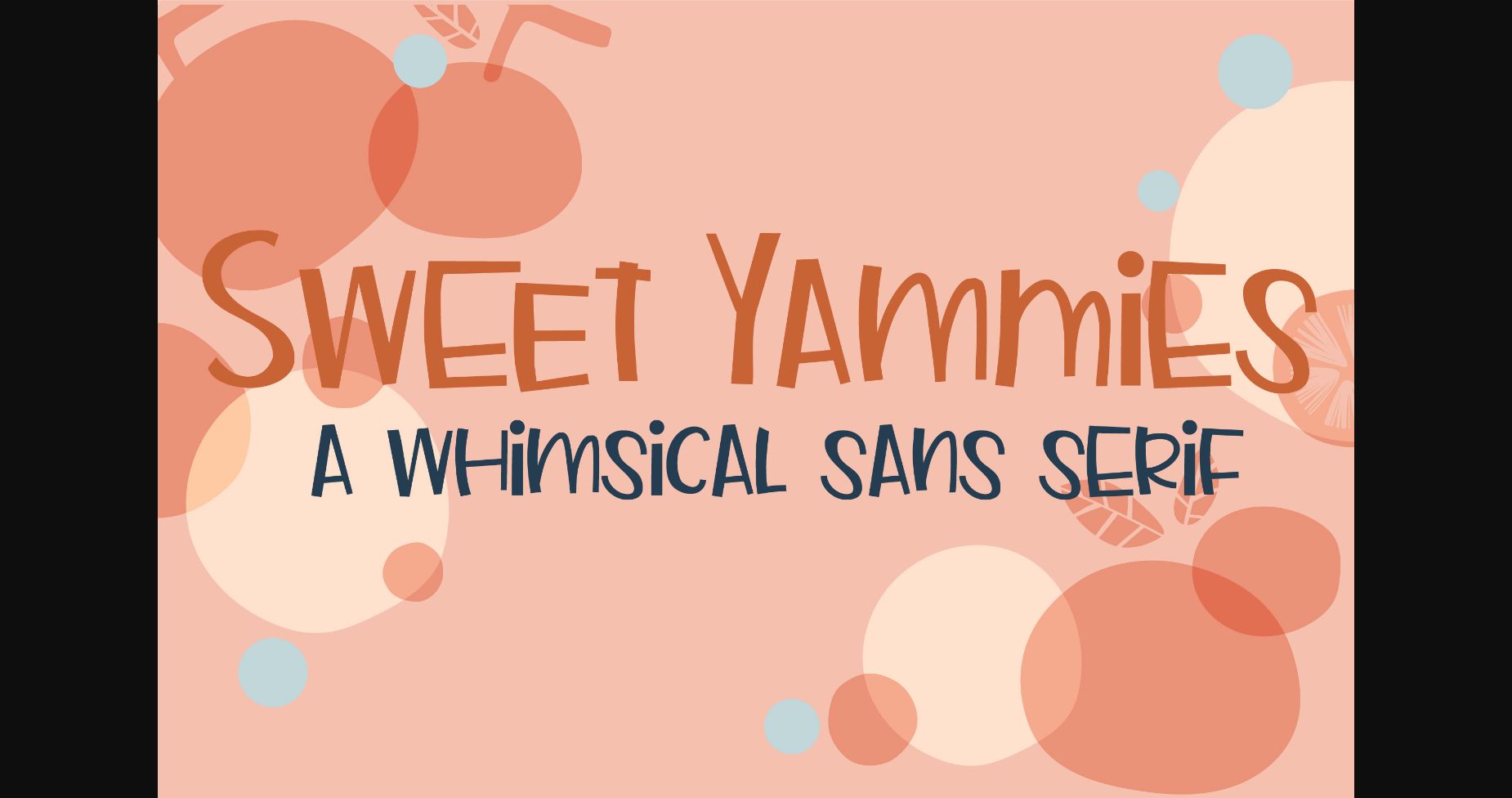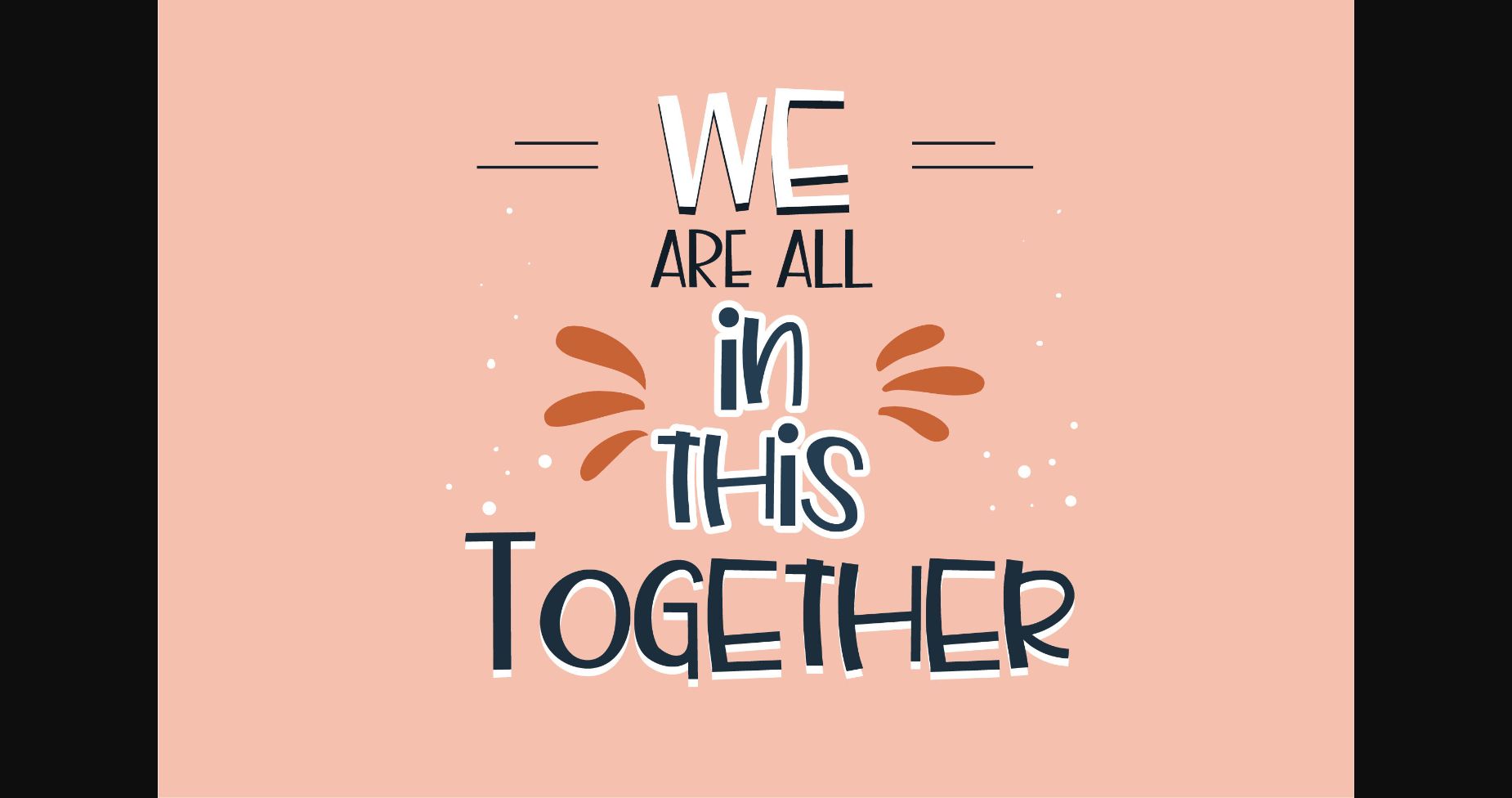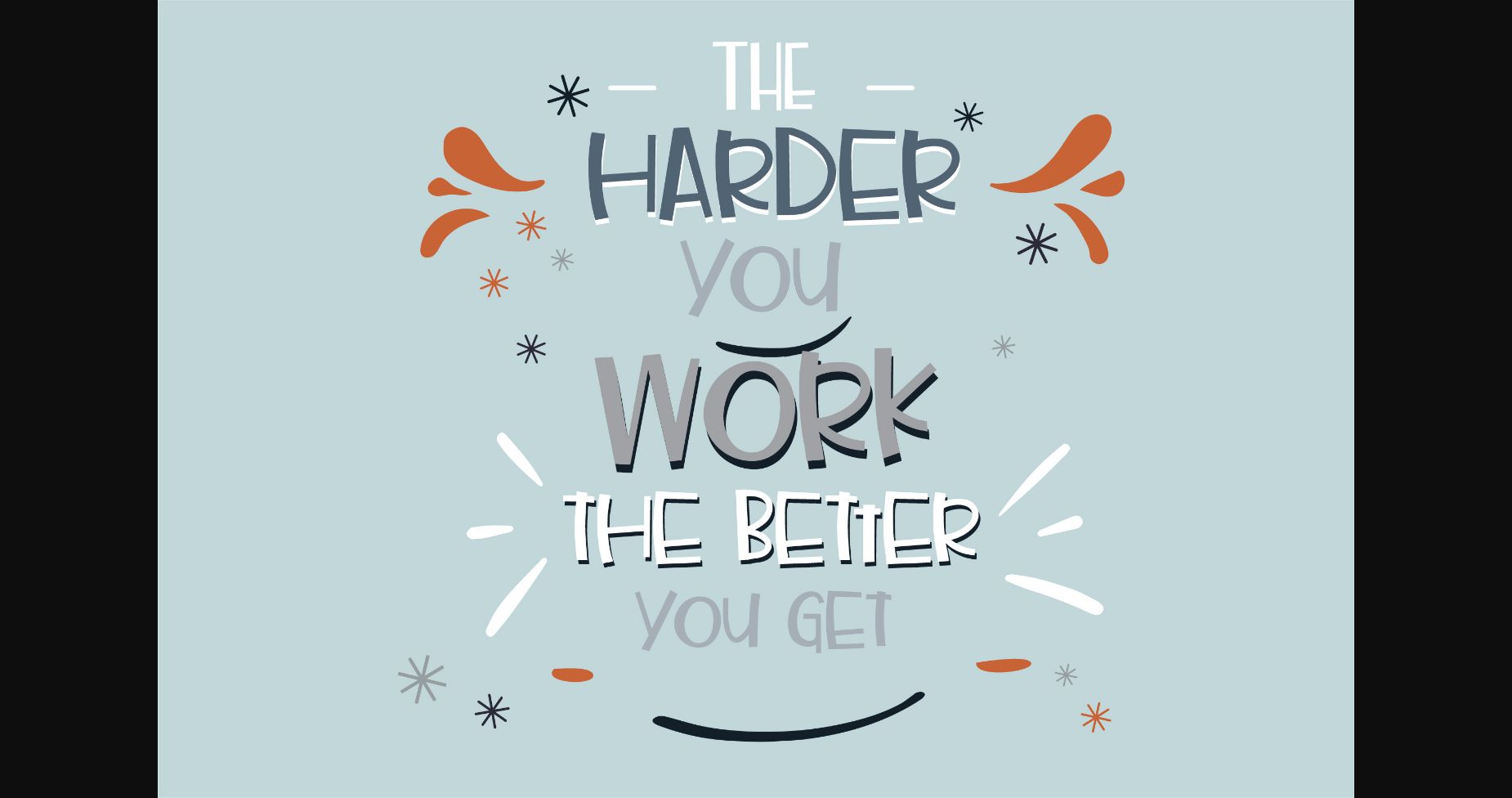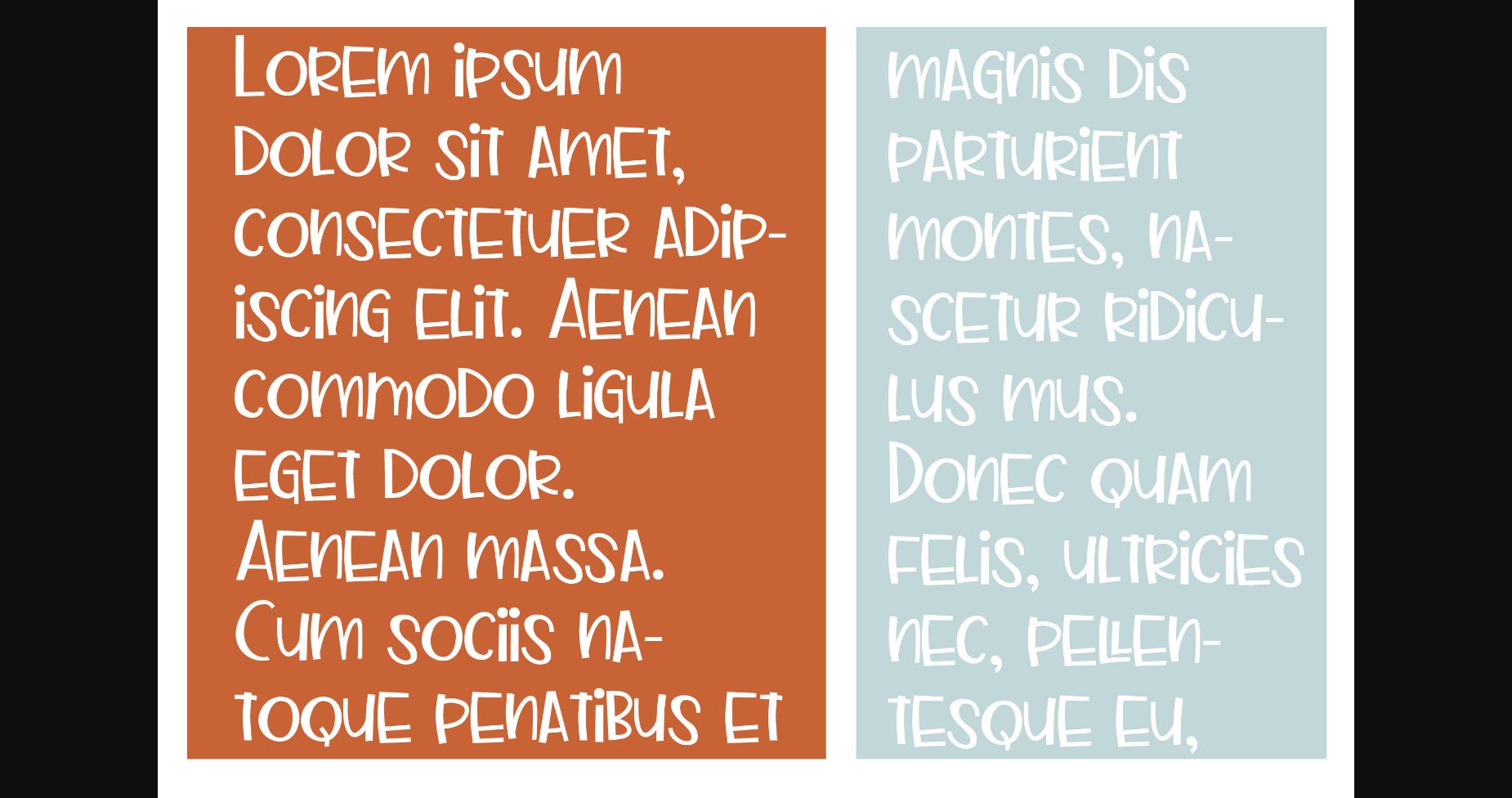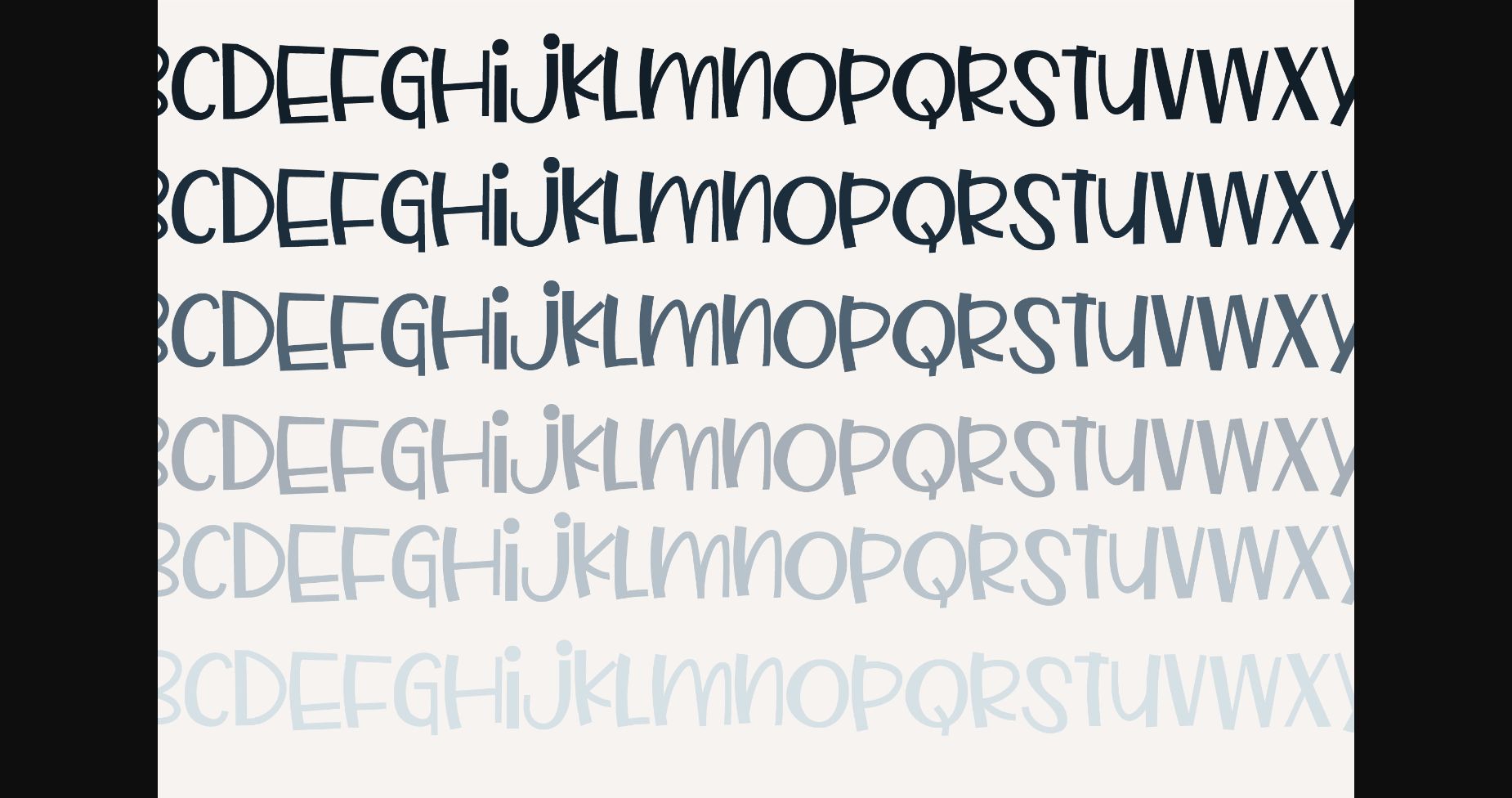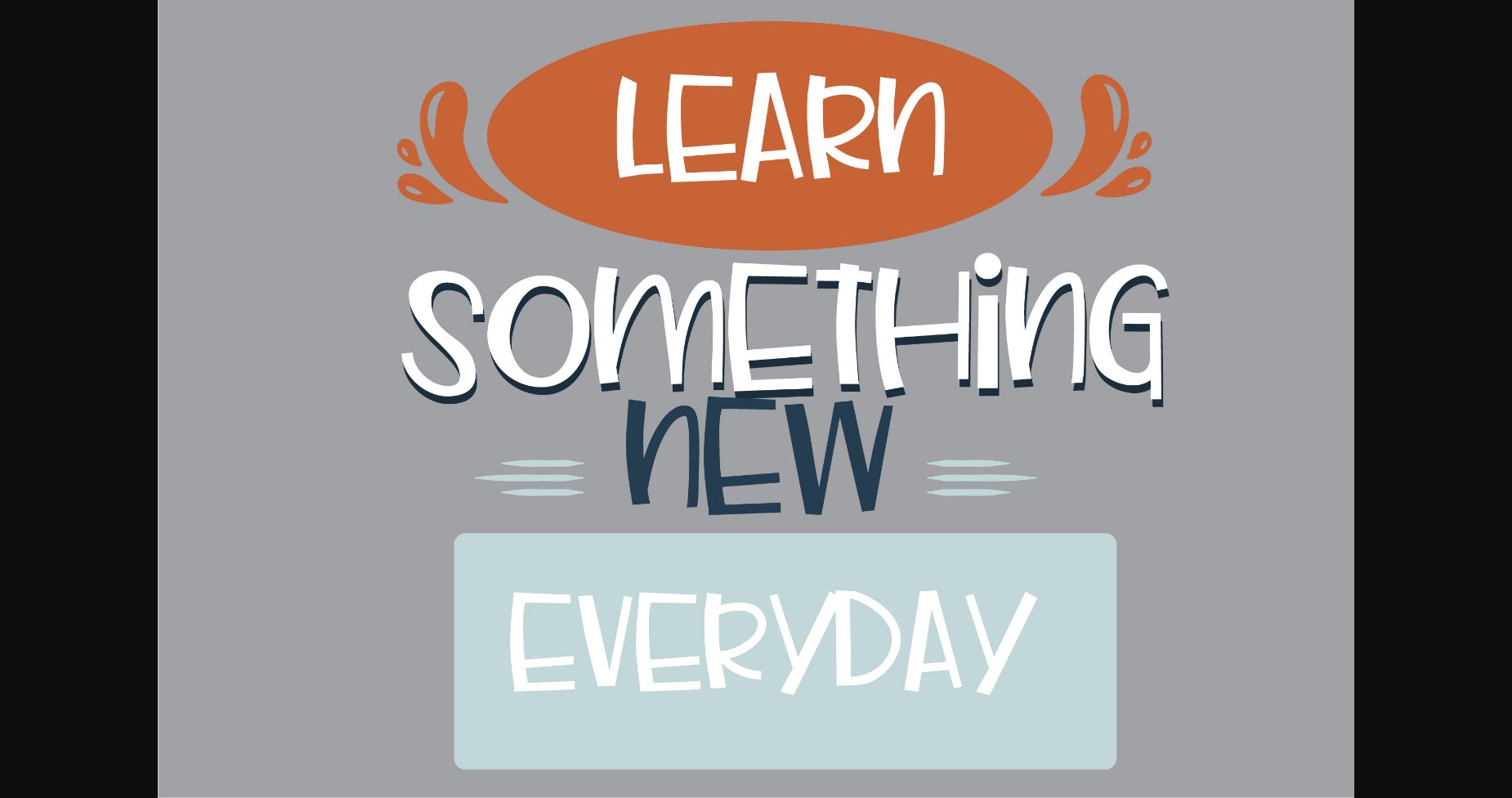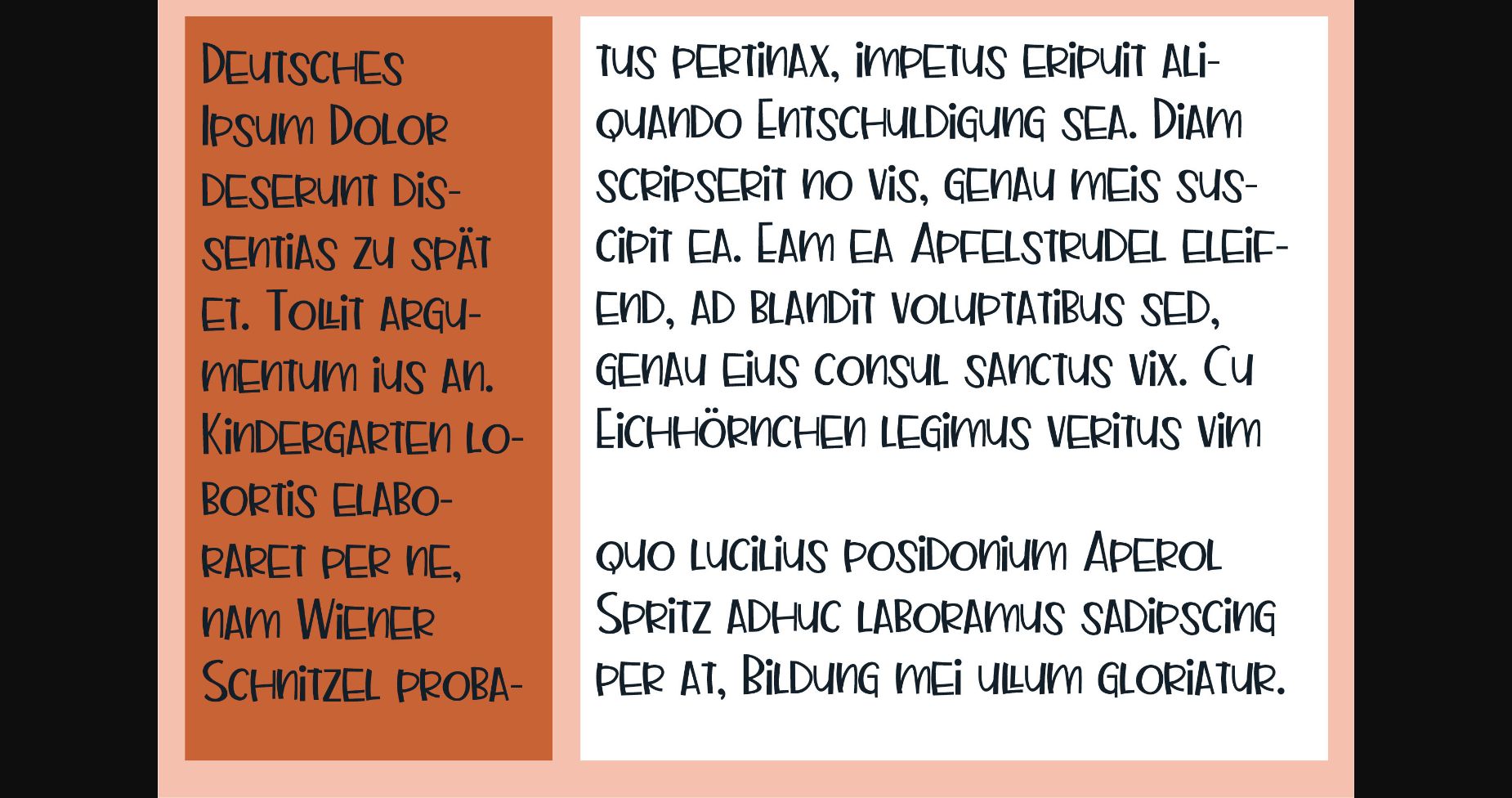
Sweet Yammies Font
About Sweet Yammies Font
This whimsy sans serif is a crafty font that adds a little fun to any product. Sweet Yammies is perfect for products that need unique and youthful typography.